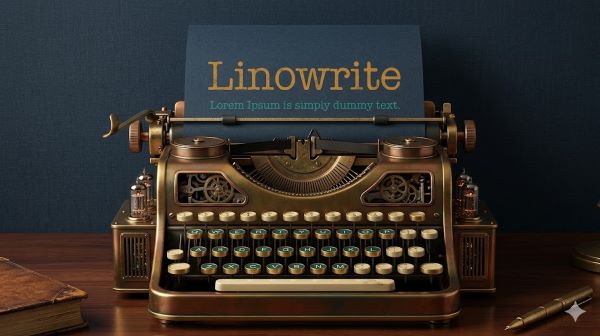
Linowrite Font
Linowrite by LennardGlitter is a free typewriter font with a unique creative origin — based on the American Typewriter but reworked through a linocut process, giving its letterforms the distinctive hand-carved, slightly irregular edges of relief printing rather than pure mechanical impression. The result is a typewriter font that bridges two analog traditions: typewriter and printmaking, producing a warmly textured, artisanal character ideal for craft branding, editorial design, and artistic contexts. Available as a demo version. Free for personal use.